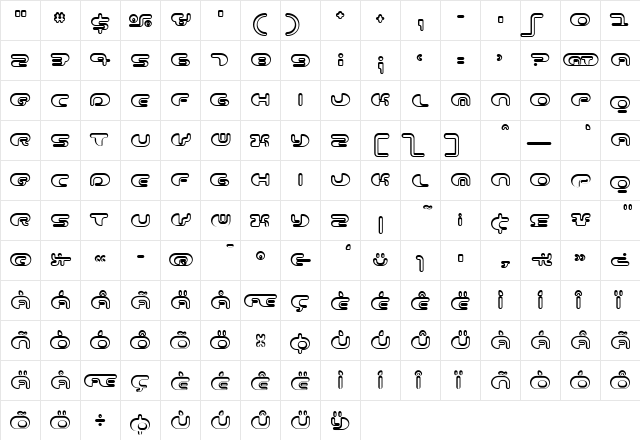
Contour Regular
| Foundry | \ Rian Hughes . A Device font |
Design Context for Contour Typeface
Contour is a composed and adaptable typeface that performs quietly and consistently across a wide range of design contexts.